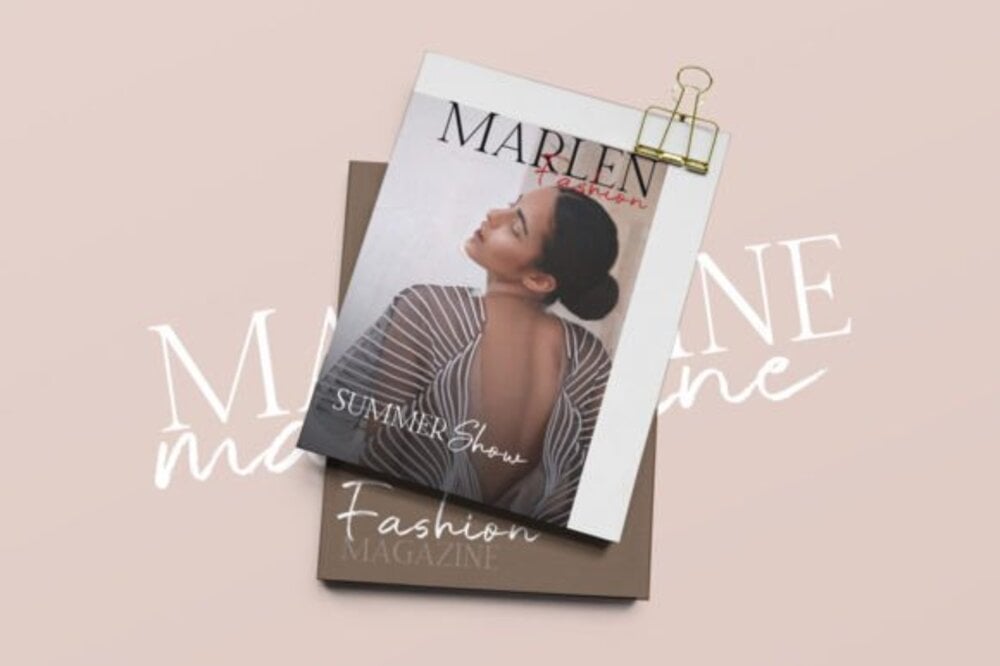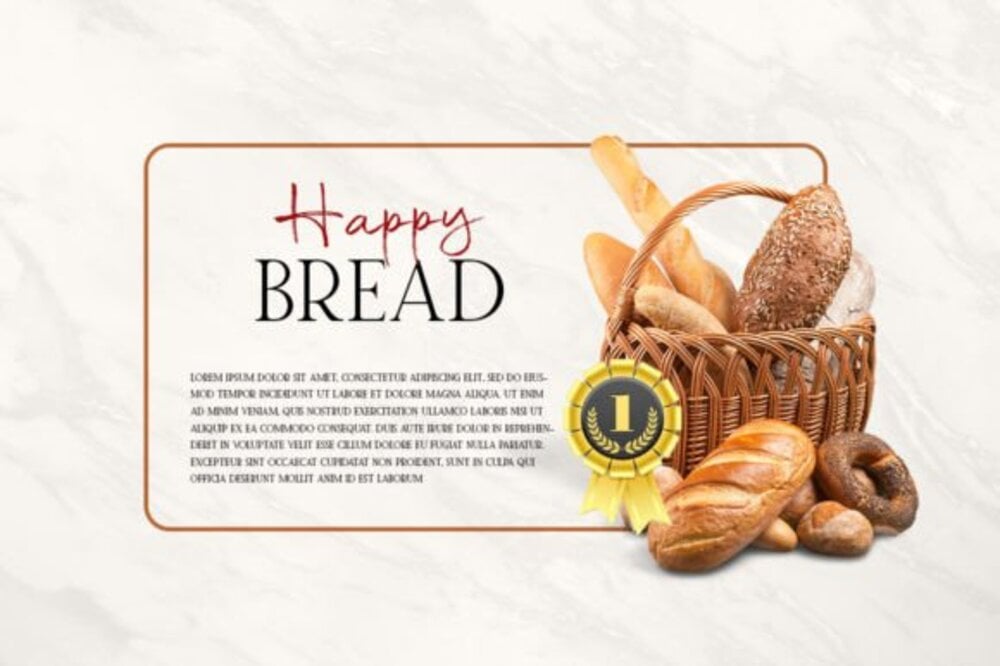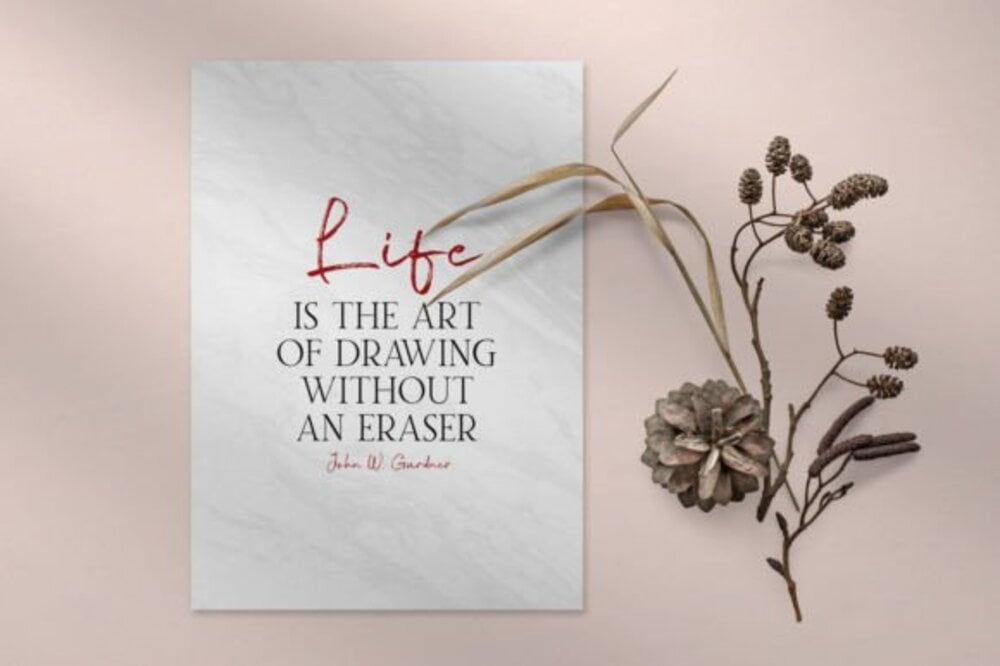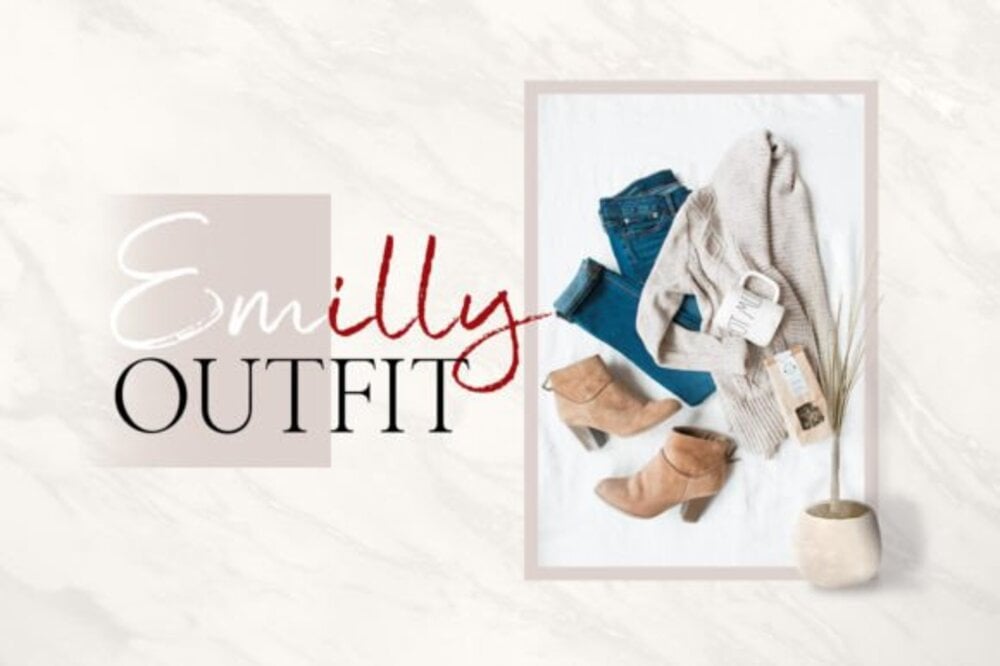
Twice Writing Serif Font
Twice Writing Serif Font is a refined and elegant typeface that combines classic serif sophistication with a touch of handwritten charm. Its delicate strokes and graceful curves exude timeless beauty, making it ideal for wedding invitations, editorial design, and luxury branding. The subtle handwritten influence adds warmth and personality, enhancing its versatility. Twice Writing Serif Font is perfect for projects seeking a harmonious blend of tradition and modern flair.